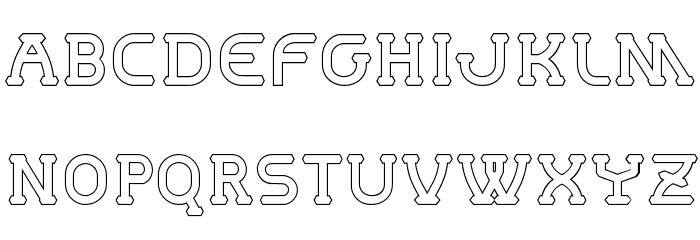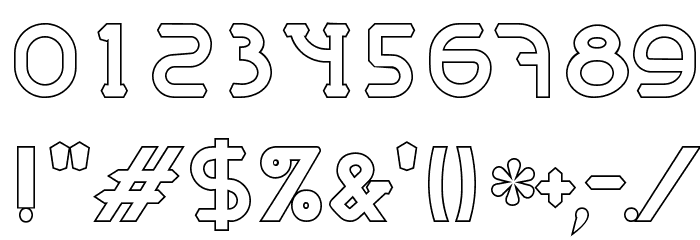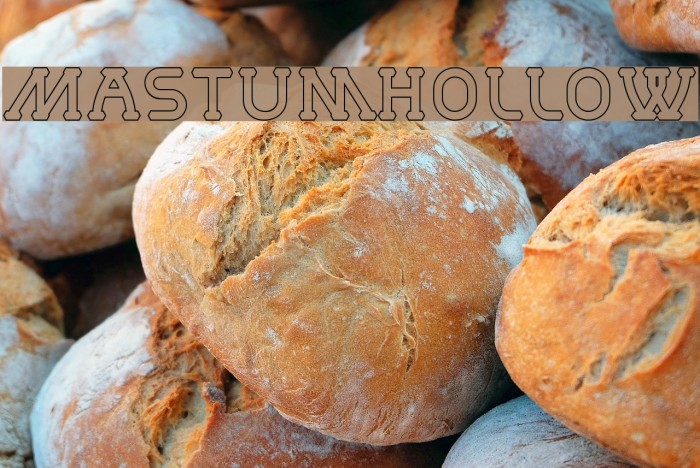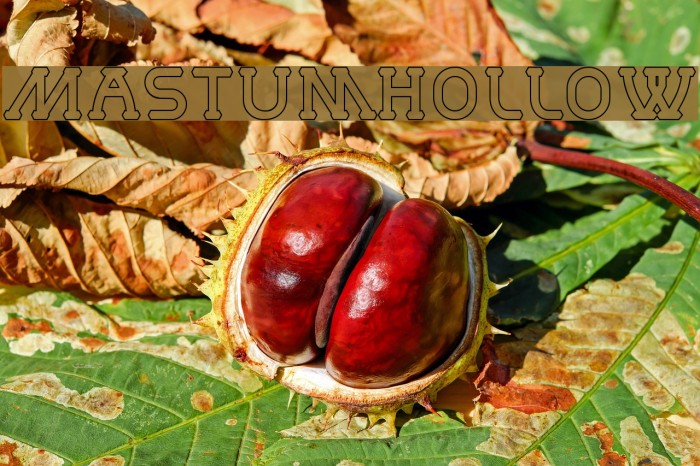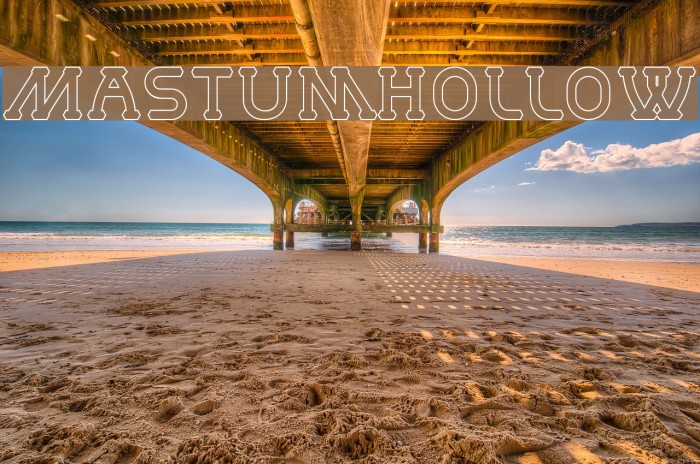
MastumHollow Font
This font features a unique hollow design with a geometric and angular structure. The characters are outlined, creating a bold and striking appearance. The uppercase letters are consistent in height, with sharp angles and clean lines that give a modern and futuristic feel. The numerals and special characters maintain the same hollow style, ensuring uniformity across all glyphs. This font stands out with its decorative and display qualities, making it ideal for eye-catching designs.
A hollow, geometric font with a modern and angular design.
- Proposed Projects: Ideal for branding, posters, headlines, and any project requiring a bold, modern aesthetic.